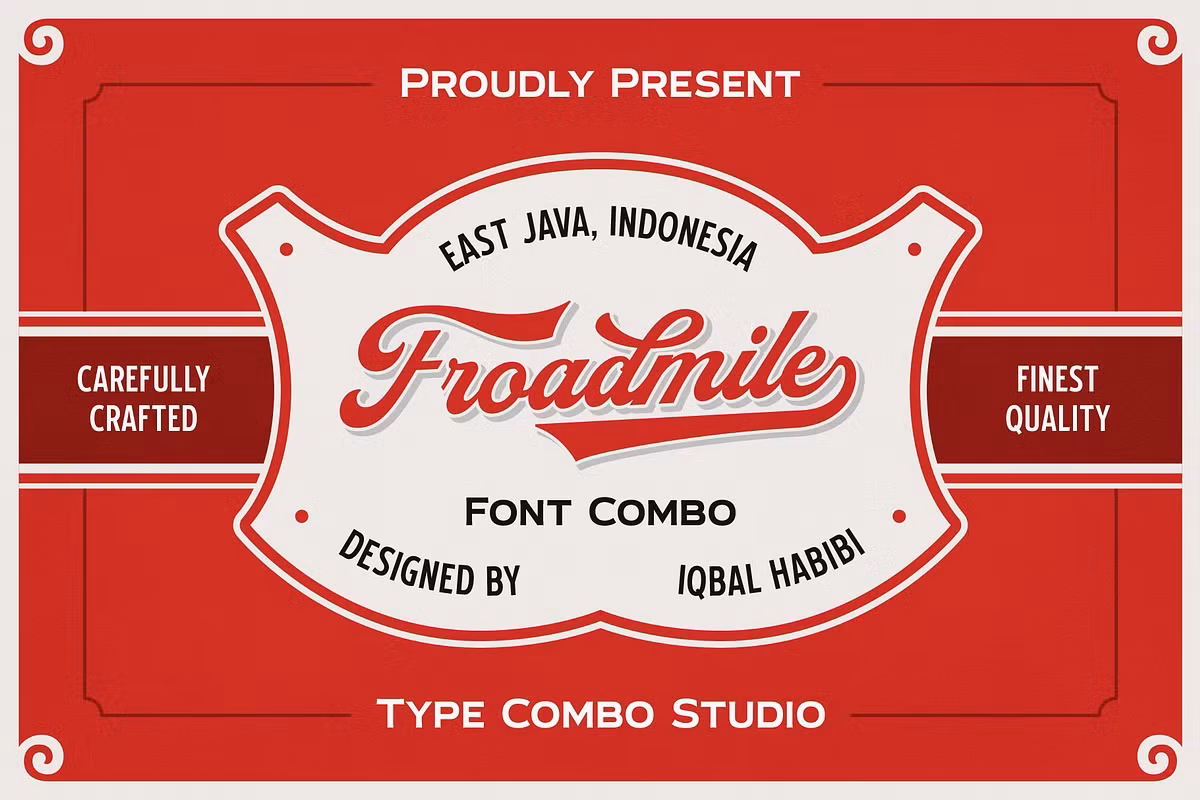
Please note, to use this font for commercial purposes, you must purchase the full version. Froadmile Script & Sans + Extras is a versatile font duo that combines the elegance of script typography with the clean, modern lines of a sans-serif. Paired with a set of creative extras, this font collection is perfect for a wide range of design projects, including logos, invitations, branding, and promotional materials. Whether you're designing a chic brand identity or a trendy product label, Froadmile provides the flexibility and style you need. Test it out and enjoy free download access for personal use. Discover the beauty of Froadmile Script & Sans + Extras Free Download and explore its potential before purchasing the commercial license. Elevate your designs with this stunning font combination.